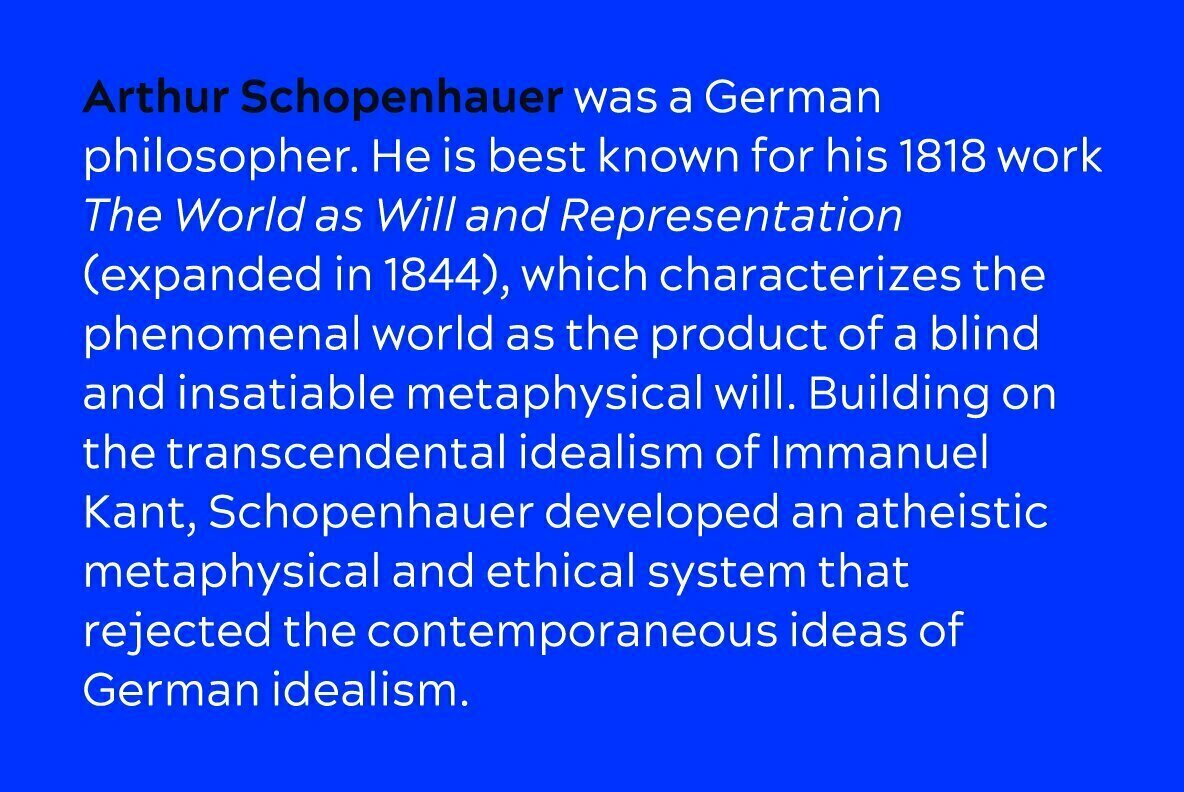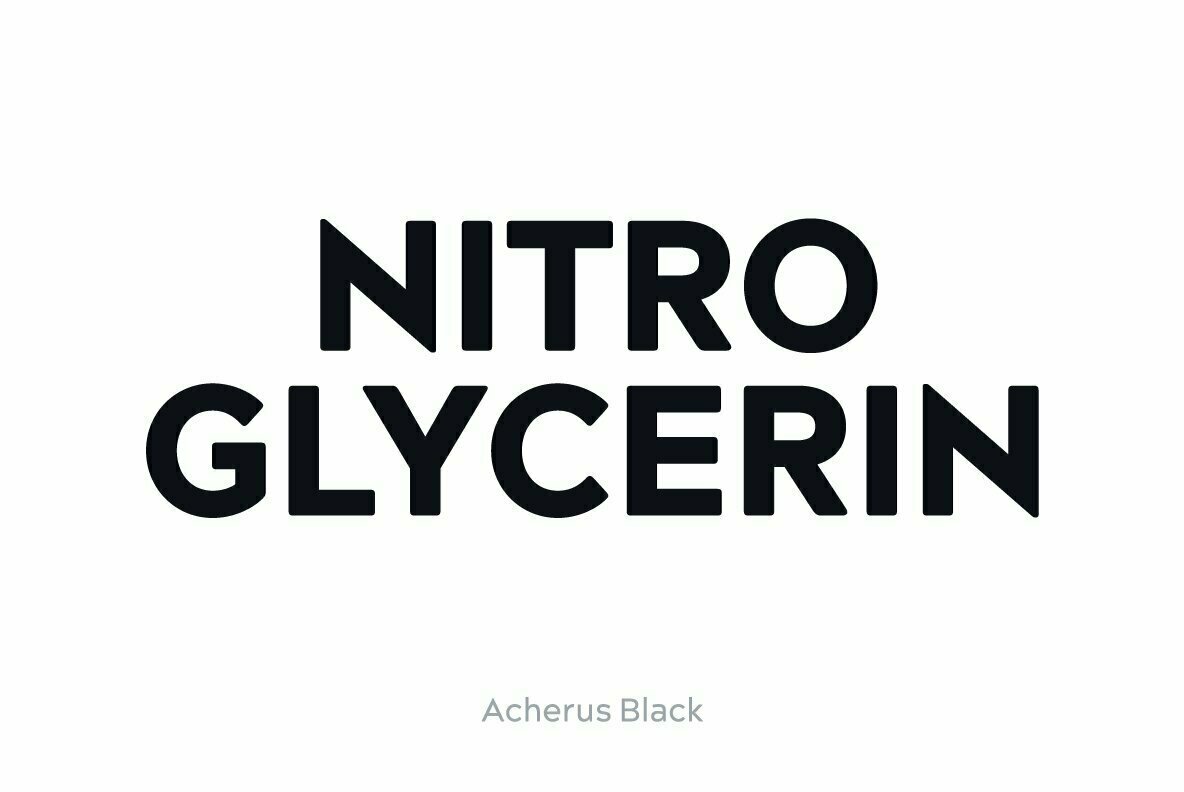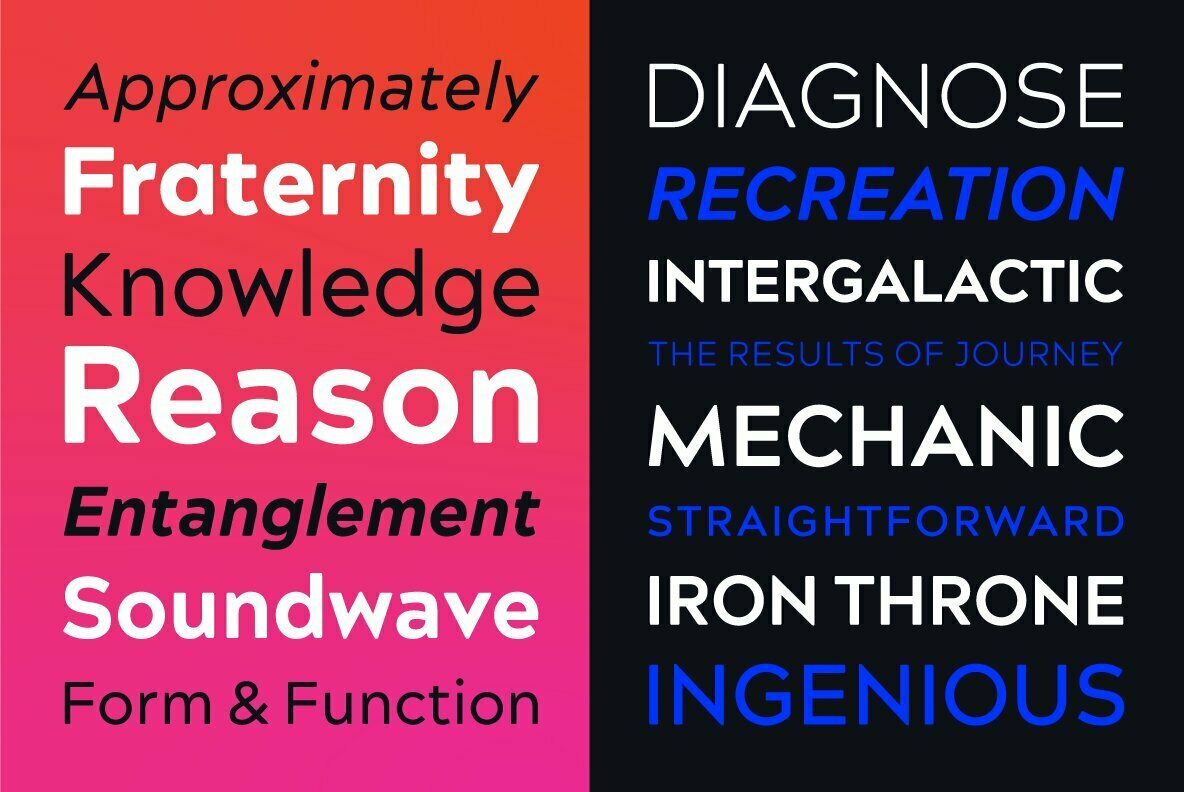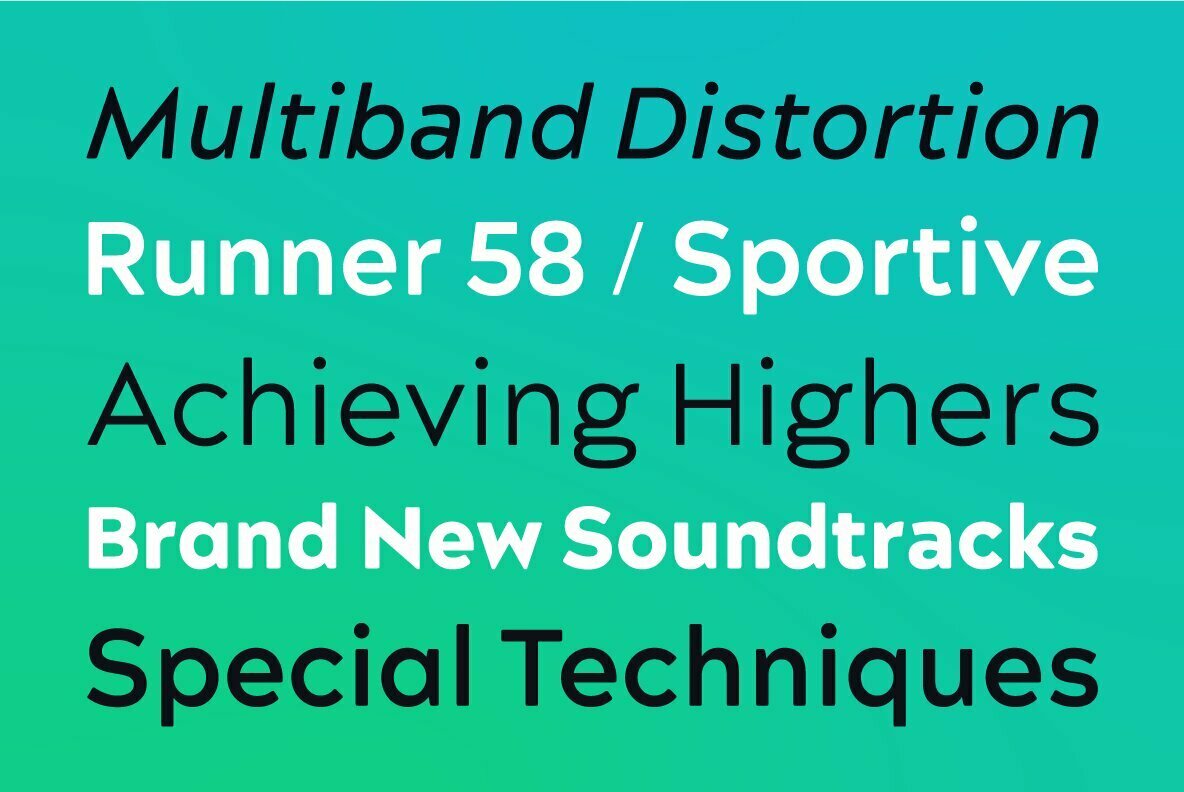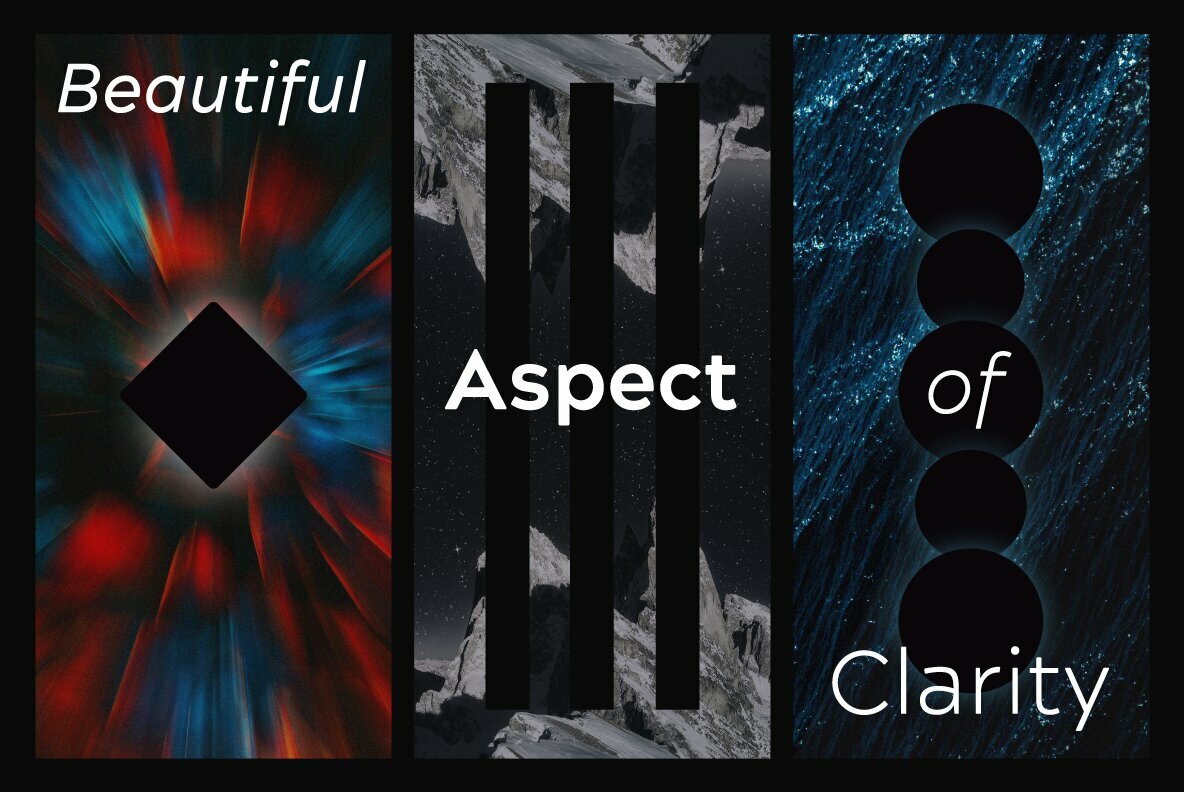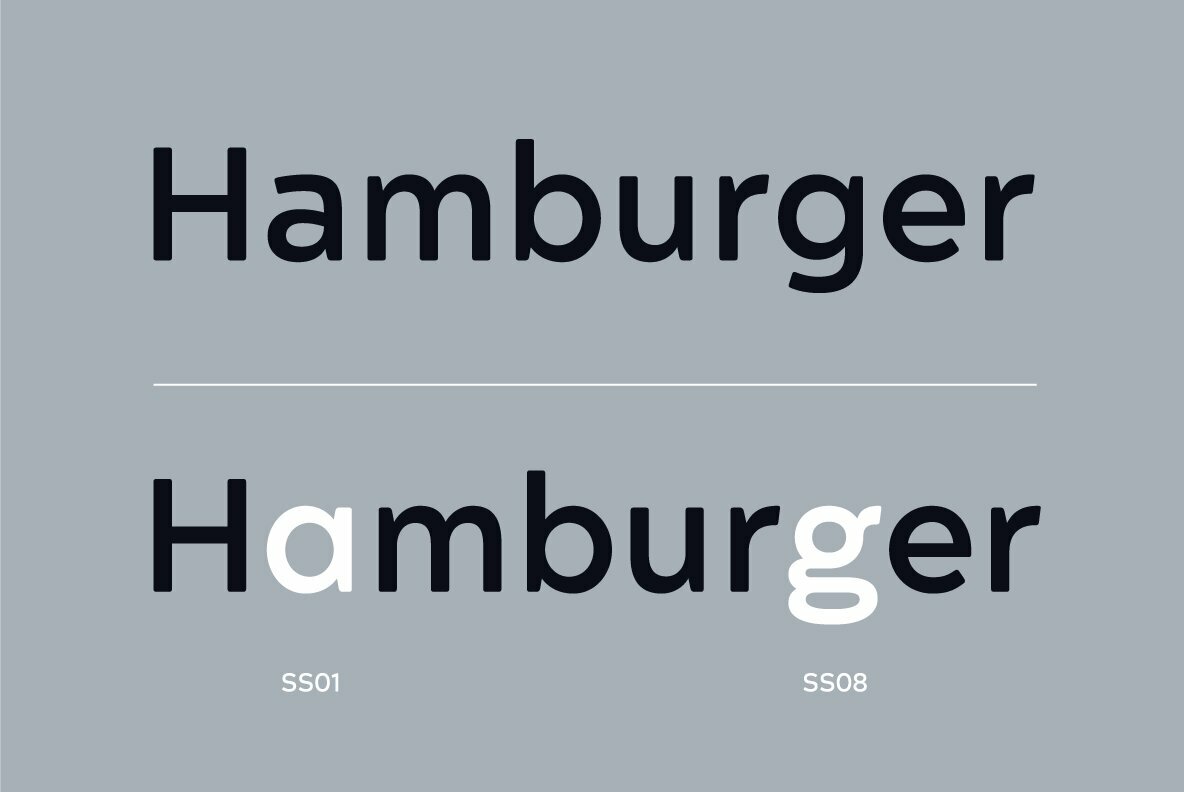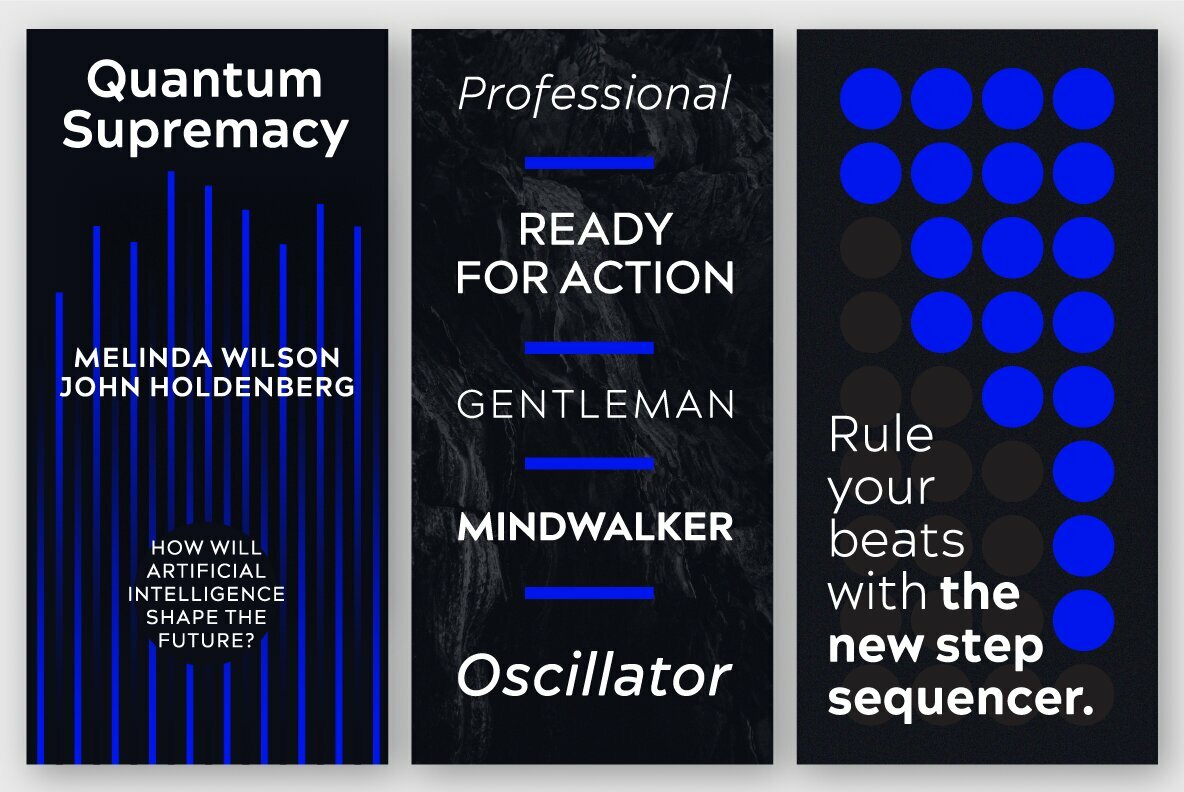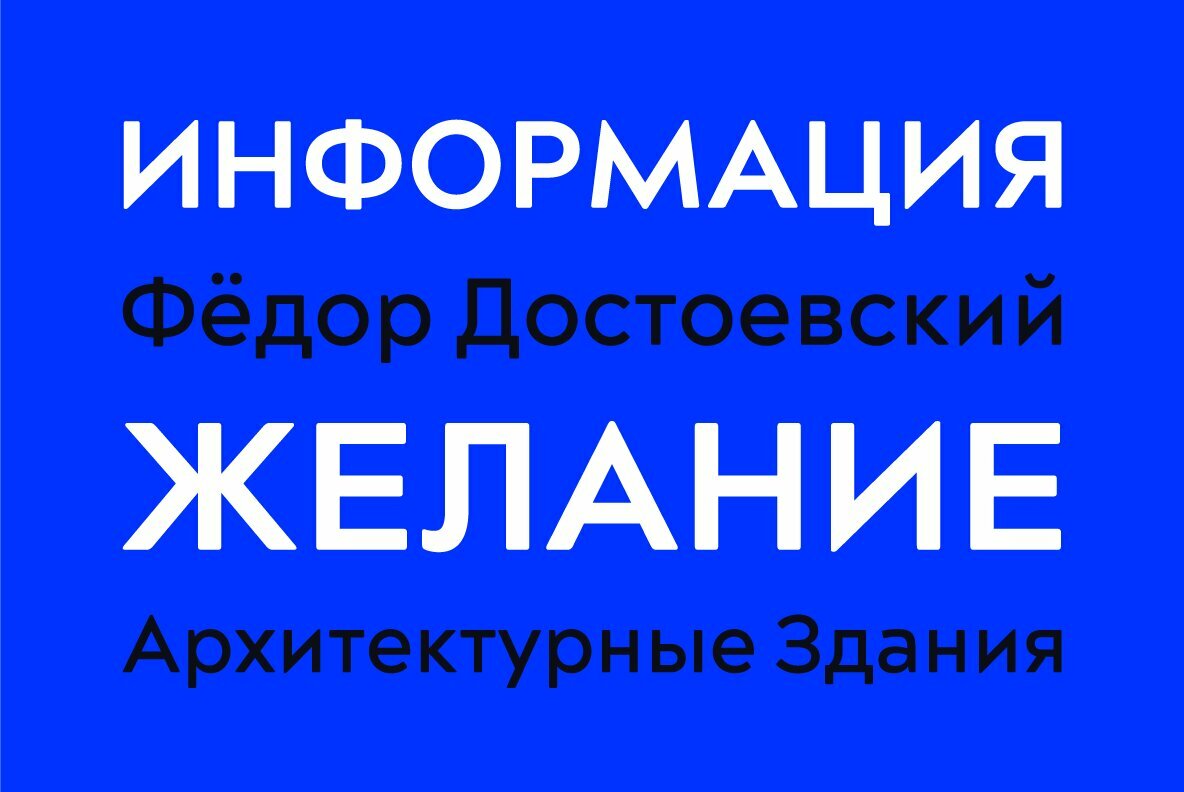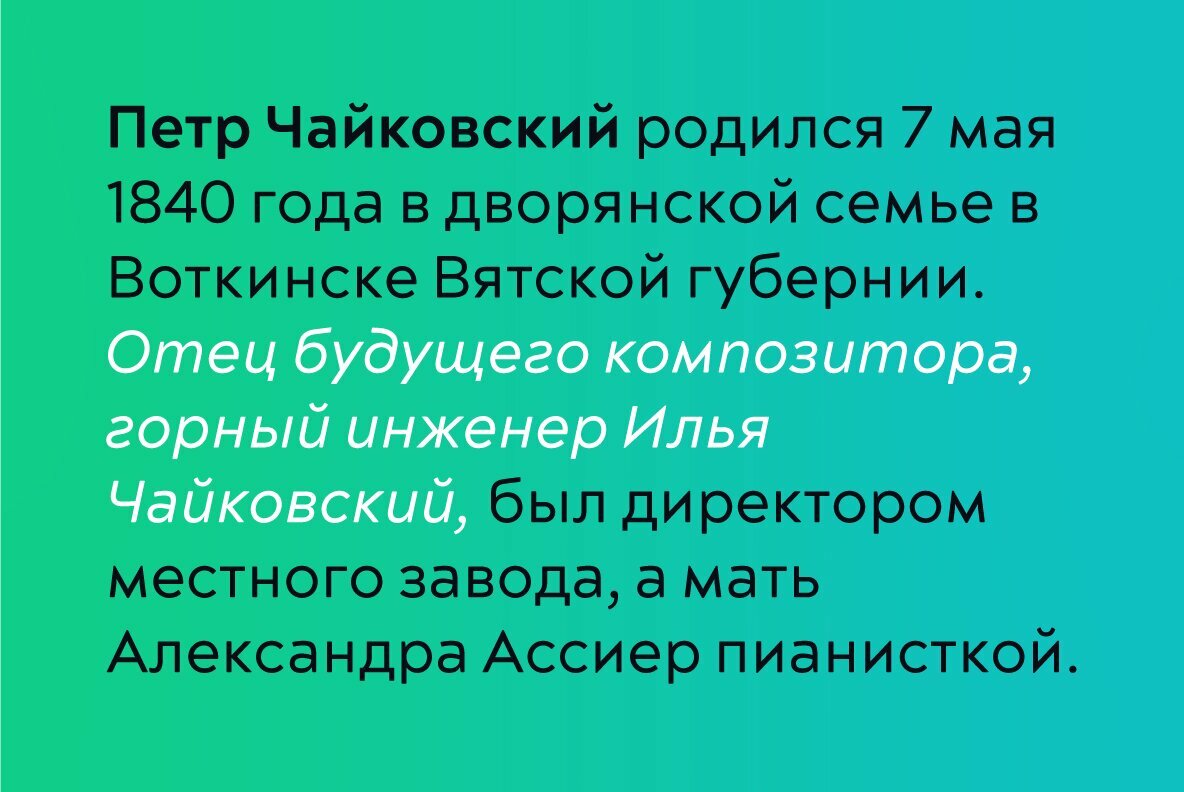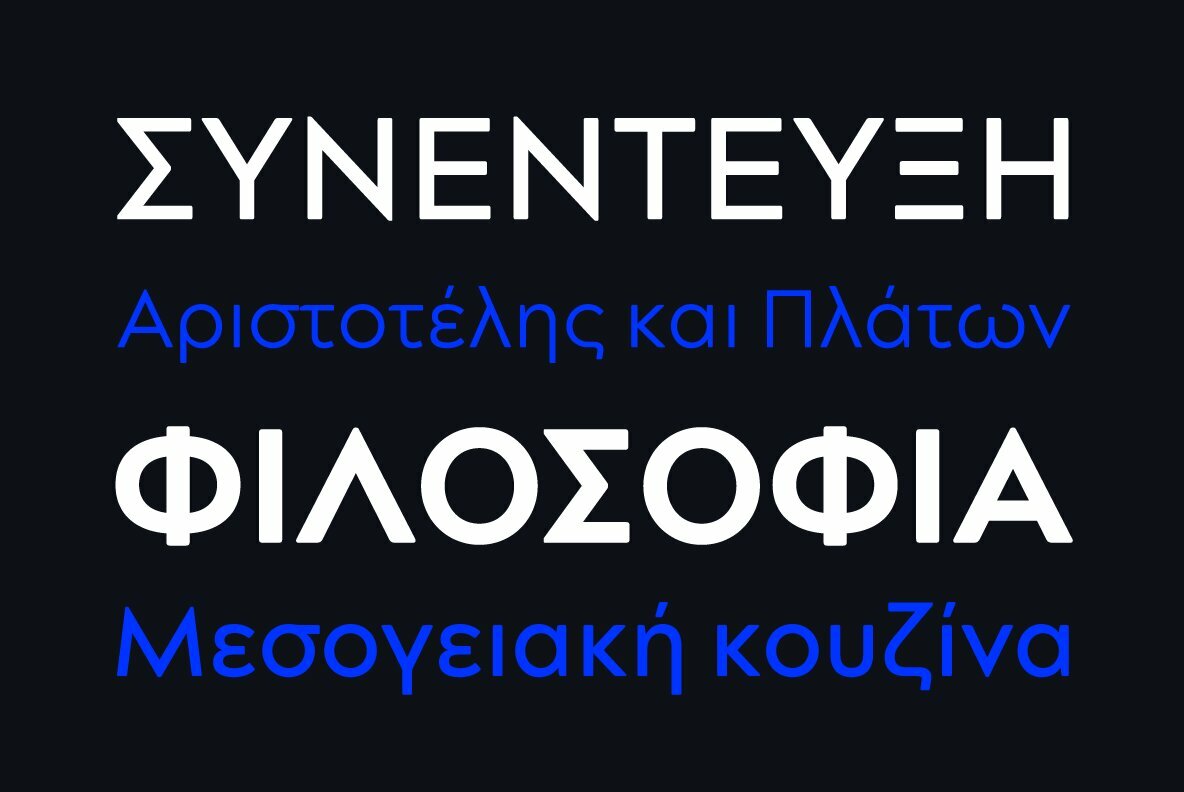
Acherus Grotesque Font
Acherus Grotesque is a rounded sans serif type family based on geometric forms. It comes in 16 styles:
8 uprights and matching italics. Each weight includes extended language support, ligatures and more.